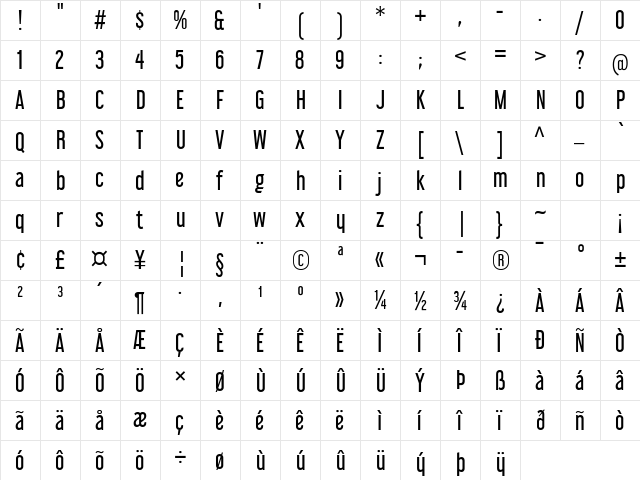
Libel Suit Regular
Design Context for Libel Suit Typeface
Libel Suit offers clean, dependable letterforms without strong stylistic allegiance, making it a practical choice for designers who need flexibility.